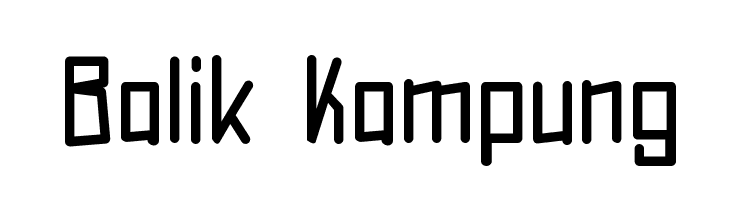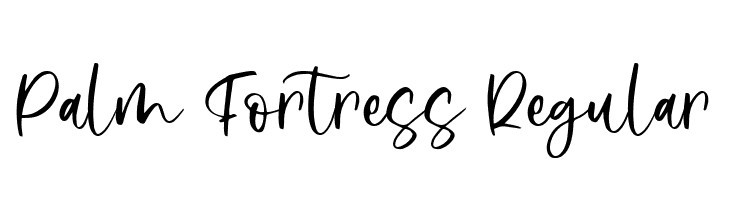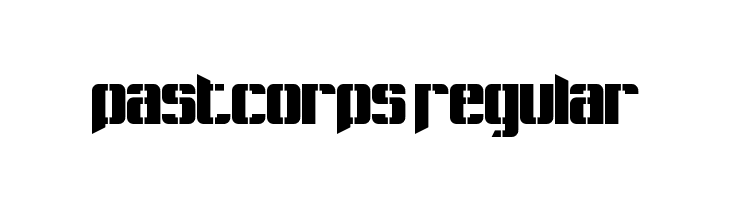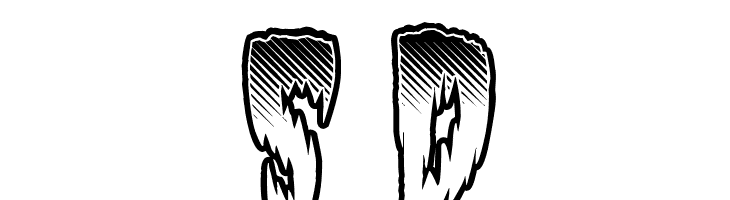
( Fonts by Andrew McCluskey - nalgames.com )
A bold, geometric font with angular shapes and a futuristic, industrial feel.
An elegant and flowing script font with graceful curves and smooth lines.
( Epic Delusion - www.epicdelusion.com/fonts-s/1873.htm )
A gothic, decorative font with thorn-like embellishments and dramatic flair.
( Typodermic Fonts - Ray Larabie - www.typodermicfonts.com/ )
A modern, italic sans-serif font with a sleek and dynamic appearance.
( گالری فانت فارسی پژوهش آريانا - only compatible with Farsi and Arabic )
A whimsical, handwritten script font with dynamic strokes.
( Fonts by Letterena Studios )
A playful, italic font with smooth curves and whimsical details.
( Twicolabs Fontdation - Fahrizal Tawakkal - fontdation.com )
A bold, flowing script font with elegant curves and dynamic movement.
( Fonts by Hanoded )
A playful, hand-drawn font with uneven strokes and a casual style.
( Chequered Ink - chequered.ink/ )
A futuristic and geometric font with bold, angular letterforms.
A dynamic and fluid script font with a modern, playful style.